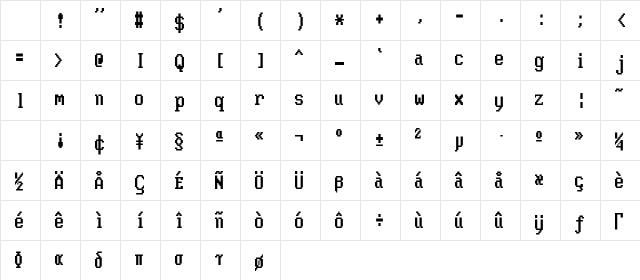
Complete Ac437 CL EagleIII 9x16 Regular glyph index. Displaying only characters natively supported by Ac437 CL EagleIII 9x16 Regular font.
Ac437 CL EagleIII 9x16 is a composed and adaptable typeface that performs quietly and consistently across a wide range of design contexts.